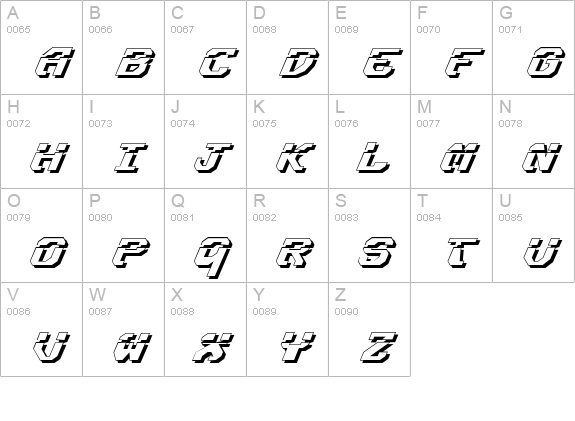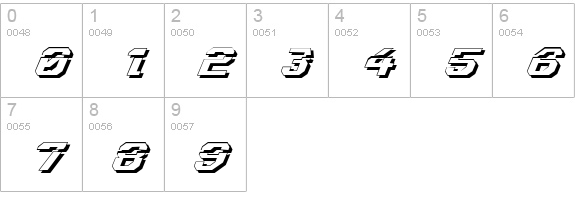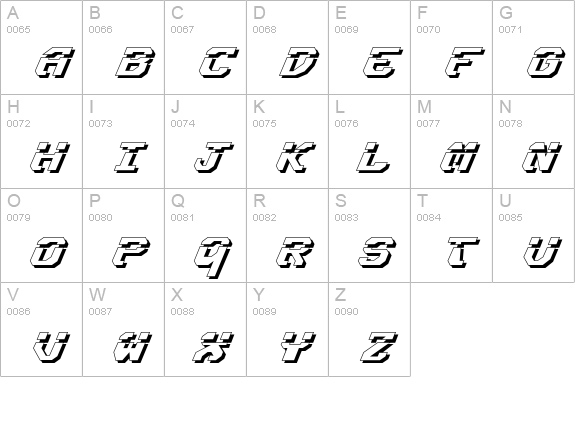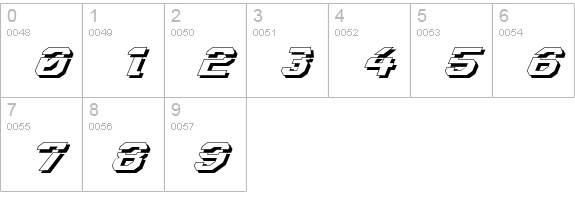
Ensign Flandry LasShad Italic is a distinctive, italic variant in the Ensign typeface family \xE2\x80\x94 well suited to design and typography projects.
Ensign Flandry LasShad Italic font is a stylish and elegant typeface that exudes sophistication and modernity. Its sleek and slanted design adds a touch of flair to any text, making it perfect for creative projects, branding, and editorial purposes. The italicized letterforms have a dynamic and energetic quality that captures attention and adds a sense of movement to your designs. What sets Ensign Flandry LasShad Italic font apart is its versatility and adaptability to different contexts, whether it's used for headlines, titles, or body text. The font has a contemporary aesthetic that appeals to a wide range of audiences, making it a popular choice for designers looking to make a statement. Best of all, Ensign Flandry LasShad Italic font is free to download at FontsMarket.com. This means you can easily access this premium font without any cost, allowing you to elevate your design projects without breaking the bank. Don't miss out on the opportunity to enhance your work with this stunning and expressive typeface. Download Ensign Flandry LasShad Italic font today and watch your designs come to life!